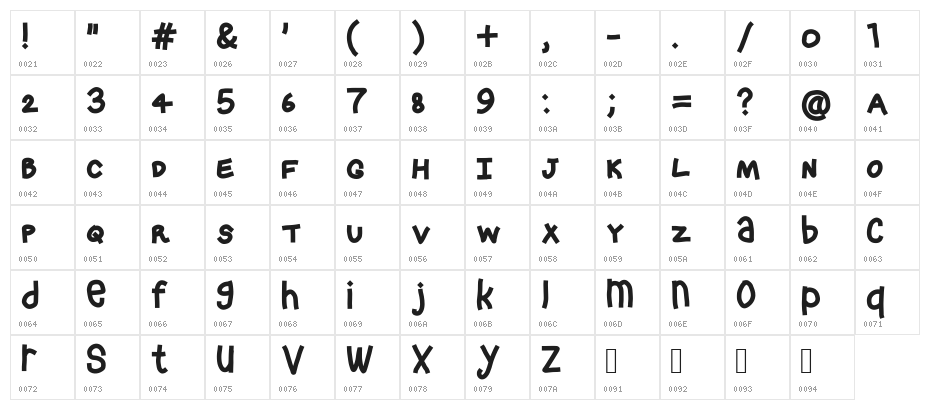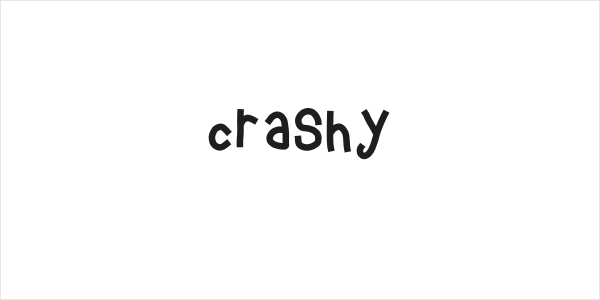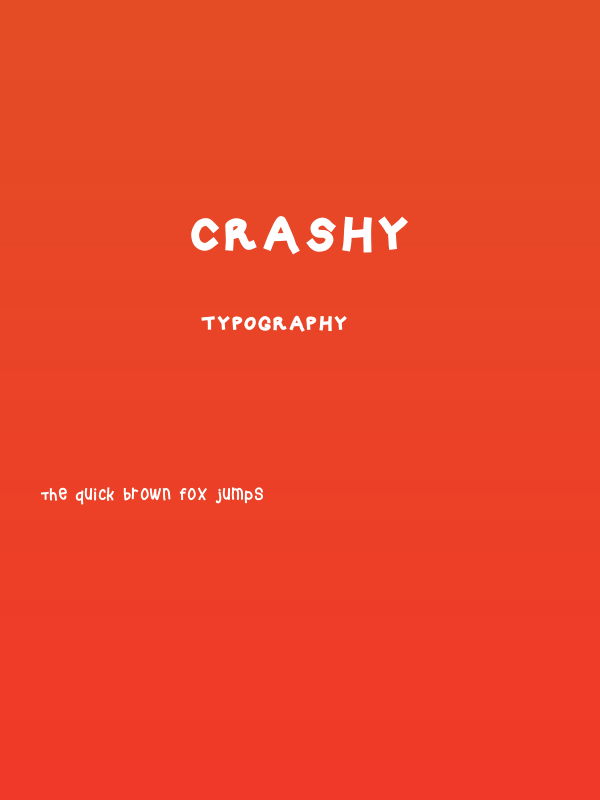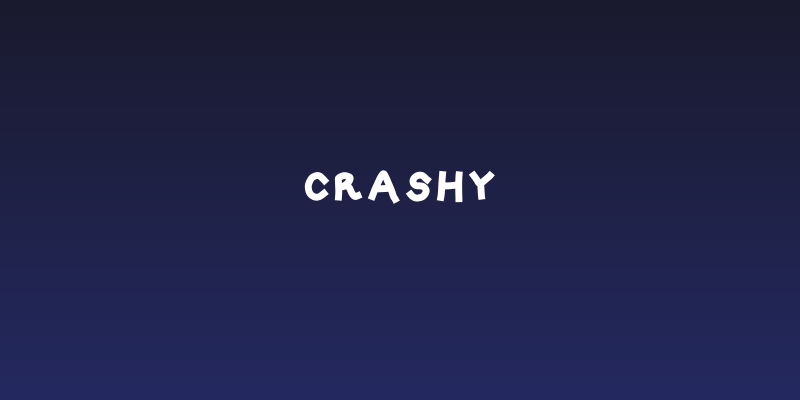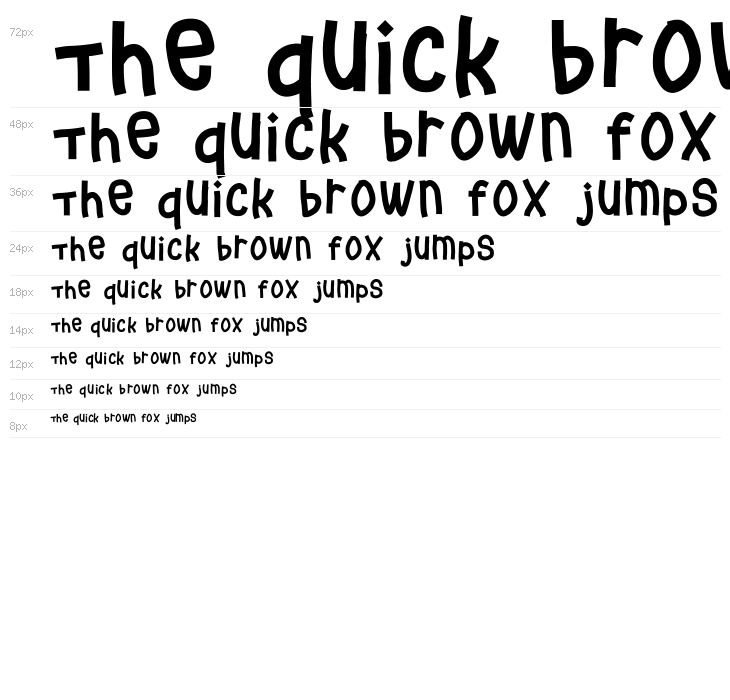
Crashy Font
Crashy Description
This playful and quirky font features bold, uneven strokes that give it a hand-drawn appearance. The letters are slightly irregular, adding a sense of whimsy and spontaneity. The uppercase and lowercase characters maintain a consistent style, with rounded edges and a casual feel. Numbers and special characters follow the same playful design, making the font suitable for creative and informal projects. Its unique style makes it stand out, perfect for capturing attention in a fun and engaging way.
| Use Case | Headlines, Posters, Branding |
| Proposed Projects | Ideal for children's books, comic strips, playful branding, and creative posters. |